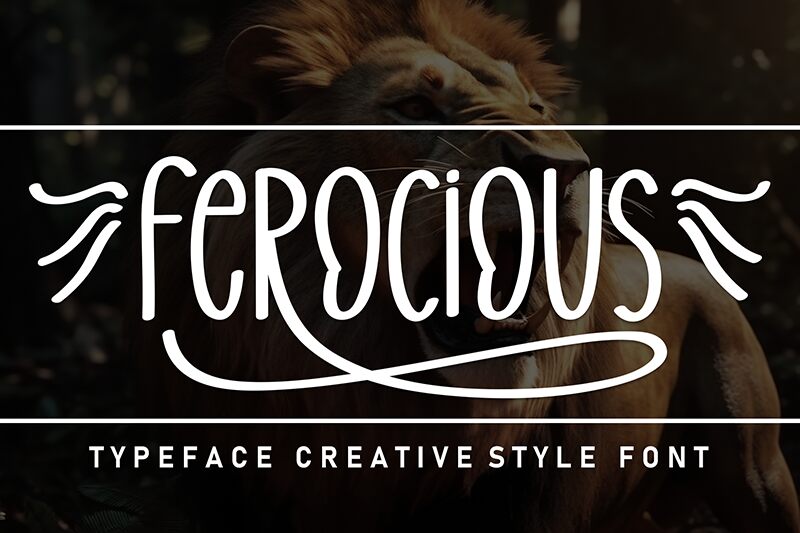
Ferocious font is a free script font from Andi Moz, instantly catching the eye with its dynamic and expressive style. The font appears elegant, energetic, and contemporary with decorative flourishes, making it suitable for versatile modern applications. It is confident yet complex, perfect for creative projects that require a unique script typeface.
The font would be a delightful choice in branding, advertising, signage, or typography for social media posts. Ferocious also fits excellently in artistic projects such as product packaging, web design, printed invitations, cards, posters, banners, brochures, magazine covers, and music album covers.
This is a sweet and friendly handwritten display font. Cute and fun, this font is ideal for writing wedding invitations, cards, or any other design that might need a playful touch!